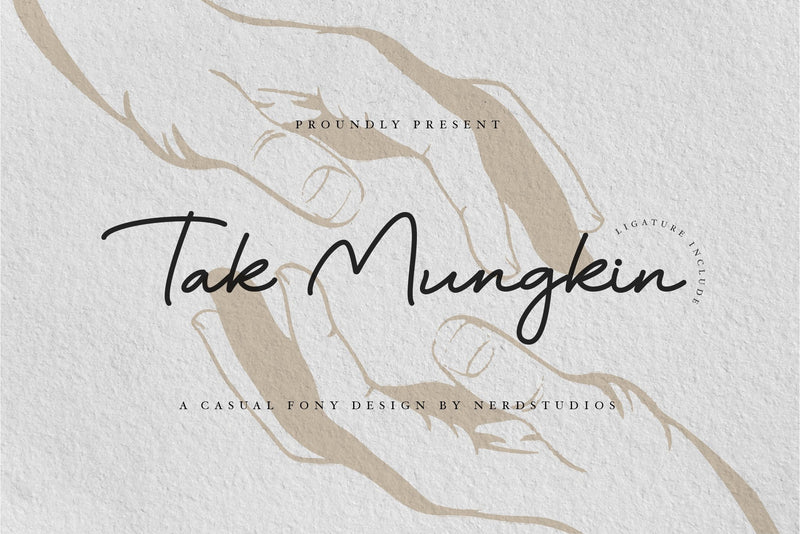
Tak Mungkin A Casual Font
Tak Mungkin A Casual Font is a signature design with a ligature that can enhance the quality of your designs.
Tak Mungkin A Casual Font– This Font is perfect for designs, logos, social media, brands, advertisements, product designs, handwritten quotes, product packaging, headers, posters, merchandise, and other designs.